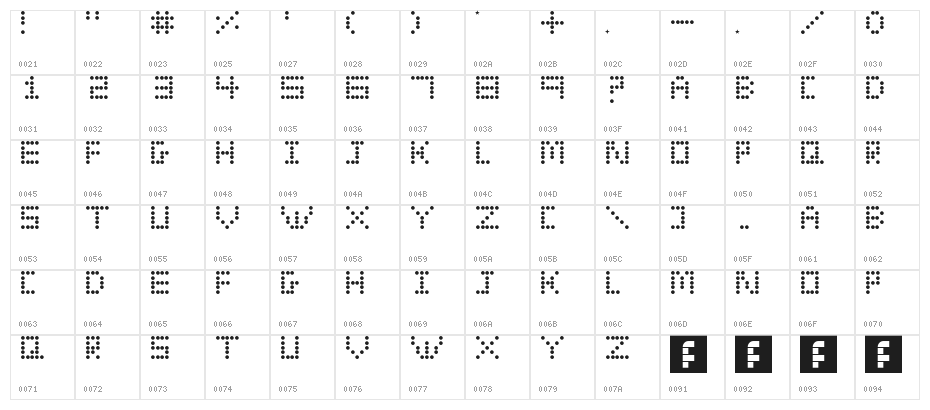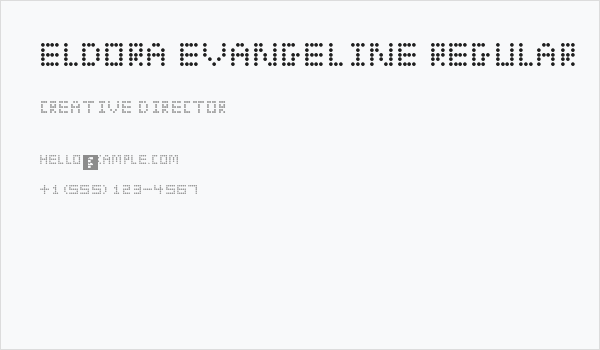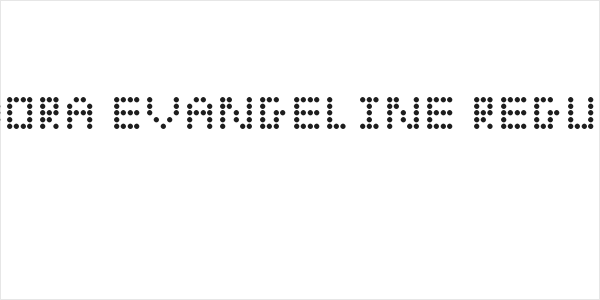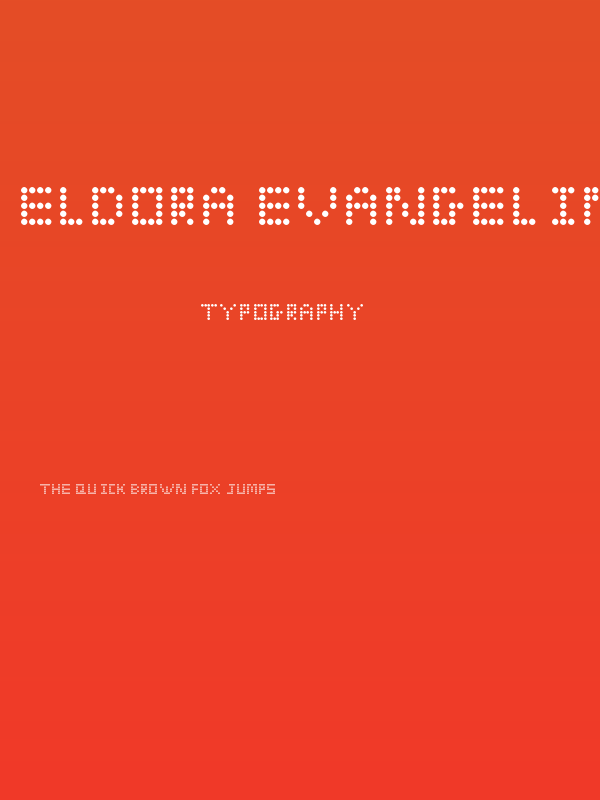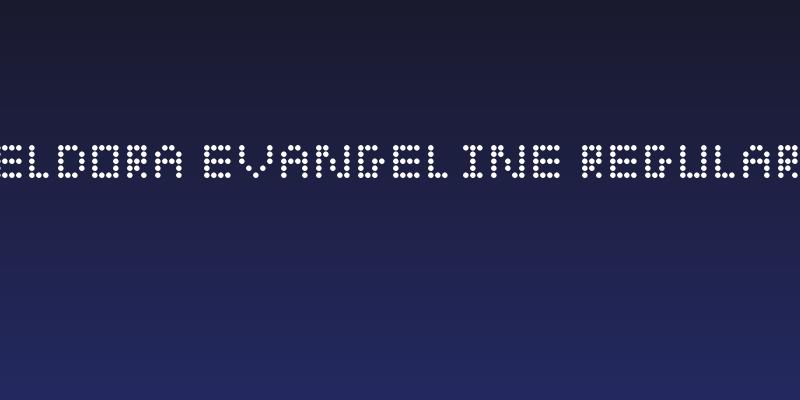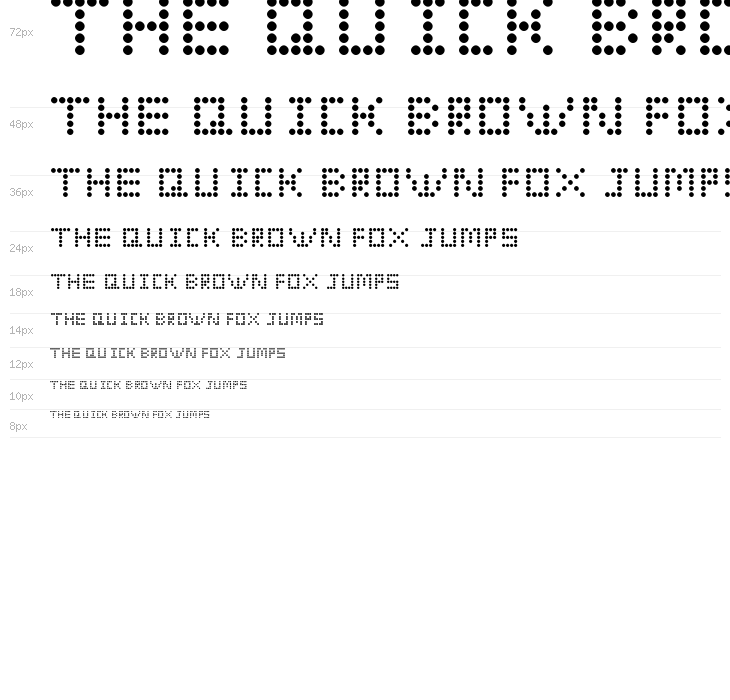
Eldora Evangeline Regular Font
Eldora Evangeline Regular Description
This font is a unique and creative design composed entirely of dots, forming each character in a grid-like pattern. The letters and numbers are constructed with uniform circular dots, giving it a digital and modern appearance reminiscent of LED displays or dot matrix printers. The spacing between the dots is consistent, creating a cohesive and structured look. This font stands out due to its unconventional style, making it suitable for projects that require a futuristic or tech-inspired aesthetic. The characters are easily recognizable despite the abstract formation, maintaining readability while offering a distinct visual appeal.
| Proposed Projects | Ideal for digital displays, tech-themed designs, posters, and creative branding projects. |